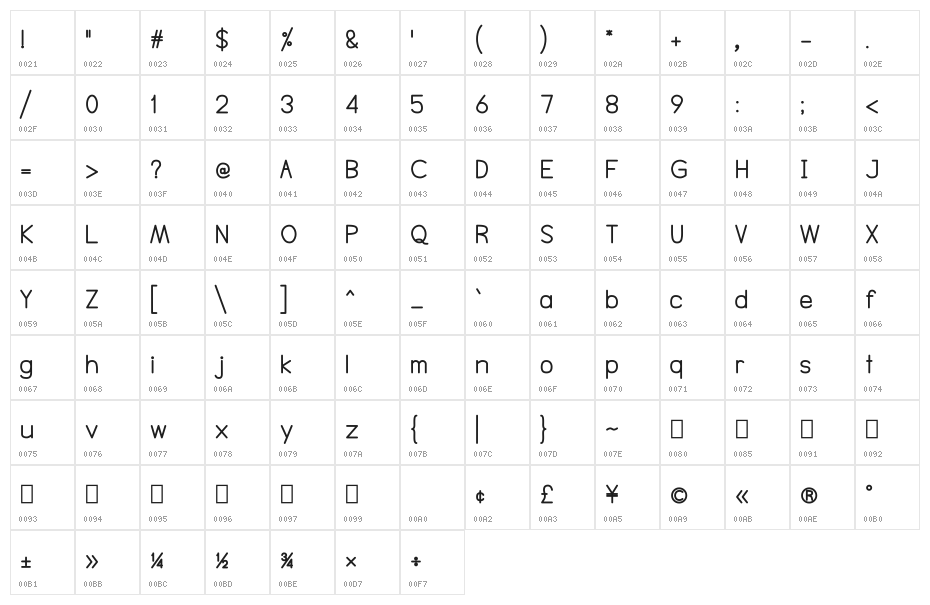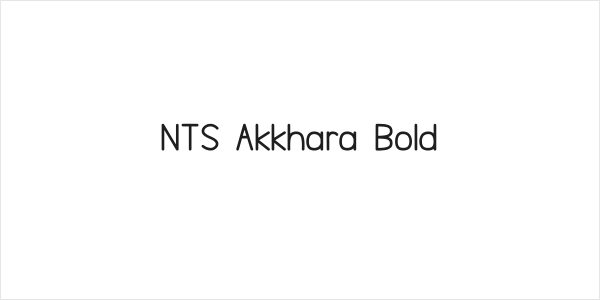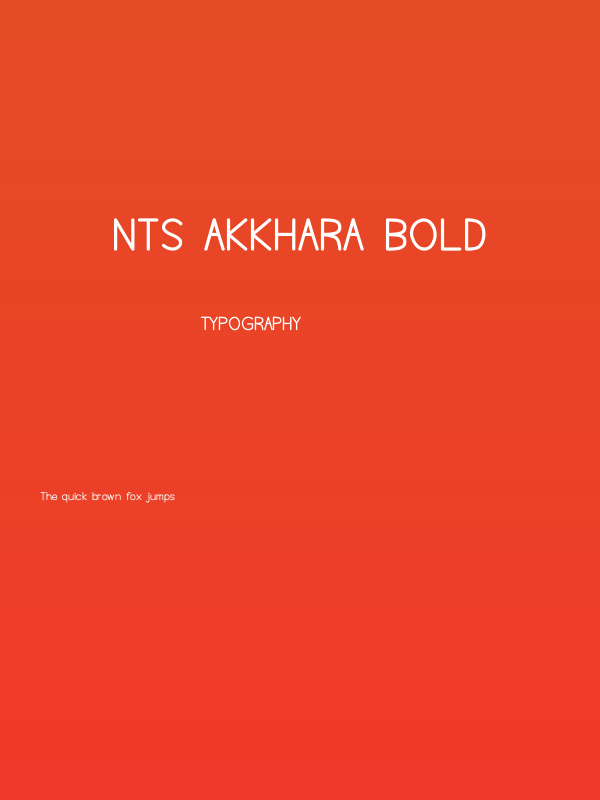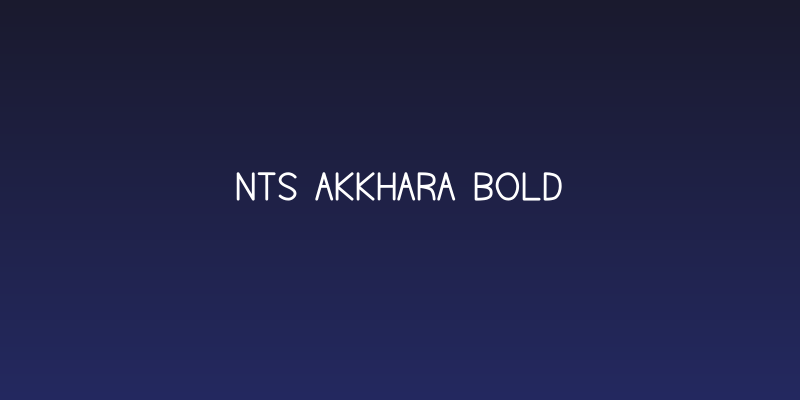
NTS Akkhara Bold Font
NTS Akkhara Bold Description
This font features a clean and modern sans-serif style with rounded edges, giving it a friendly and approachable appearance. The characters are evenly spaced, providing a balanced and harmonious look. The uppercase and lowercase letters maintain a consistent height, contributing to its readability. The numerals are clear and distinct, making them suitable for various applications. Special characters are well-integrated, ensuring versatility in design projects. Overall, this font's simplicity and clarity make it ideal for both digital and print media, where legibility is a priority.
| Proposed Projects | Ideal for branding, web design, user interfaces, and educational materials. |